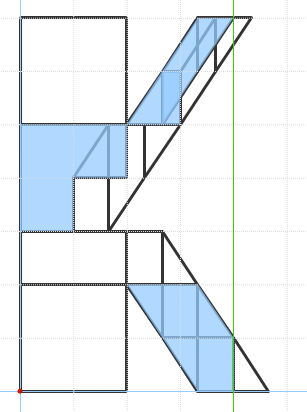
I like it! 10/10.
Some glyphs are directly delicious (like the "&" and many others, especially in the lower case). Have you thought about trying to link the lower arms of the "R" and "k" with the uppers? I think that would work better, but this may be a differential sign for the font, if you want it in that way. The "e" is my "ugly duck", but the difference is the taste.
Thanks! The inktraps in the 'R' and 'k' were definitely design decisions, but if you can figure out how to make the uppercase 'K' match, let me know!
The 'e' was a challenge, but I've grown kind of fond of how it turned out.
This is cool Lex. I love the numerals.
How about this for alternate e?
...Or this another one...
Please, erase my "ugly duck" opinion about your letter "e".
@elmo: See what I mean about it growing on you?
I've created an alternate 'e' inspired by yours in the IPA set.
@will: Interesting... not exactly what I had in mind, but maybe I'll play with what you've come up with... :-)
I've also reverted the 'g' back to its original form - I thought it looked too heavy at first, but now I realize it was fine how it was.
We make our way when we walk. Keep on, compañero.
Congrats! It's a very pretty font.